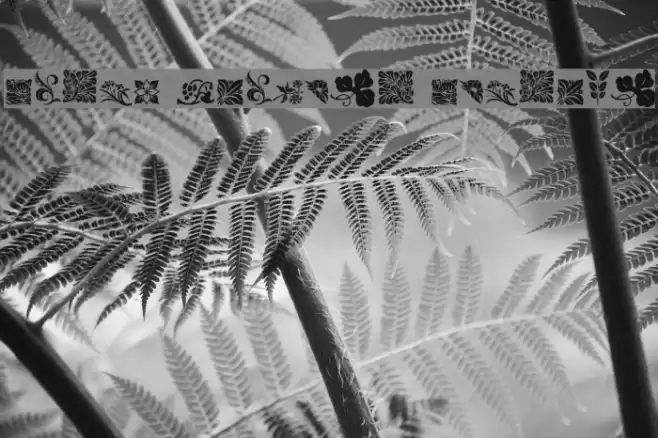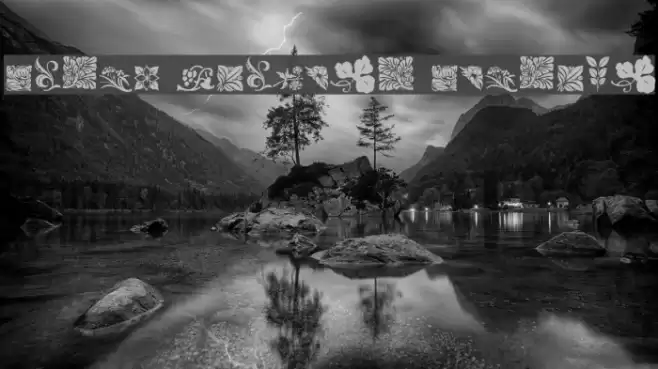
Rough Flowers Regular Font
Rough Flowers Regular Description
A decorative dingbat set featuring a variety of intricate, hand-drawn floral and botanical motifs, including flowers, leaves, and ornamental arrangements, rendered in bold black silhouettes with rough, organic edges.
Ornamental floral dingbat collection with bold, hand-drawn style from Dingbats fonts.
- Proposed Projects: Invitations, greeting cards, decorative borders, scrapbooking, packaging, vintage-inspired designs.
- Overall Style: Decorative, Vintage, Organic
- Use Case: Decorative elements, Borders, Accents